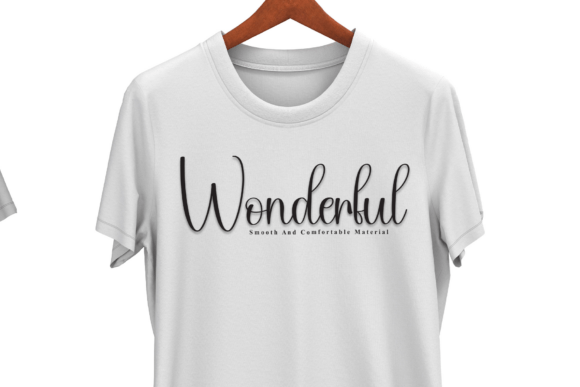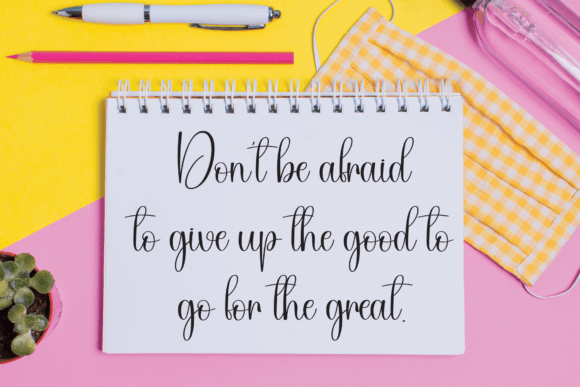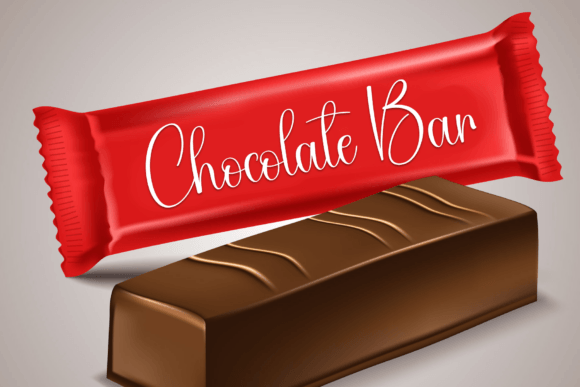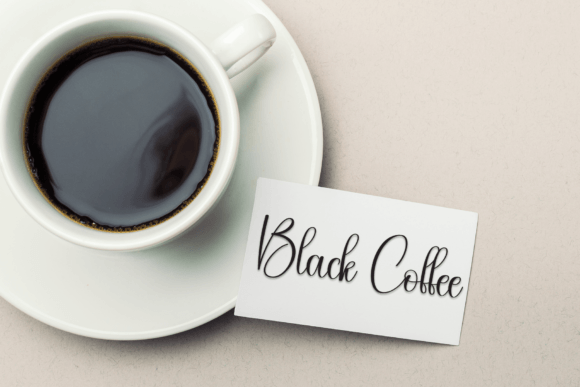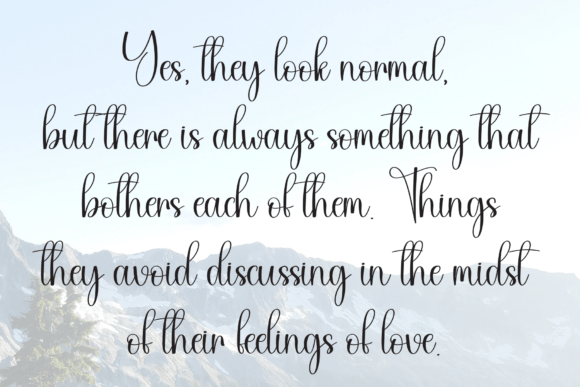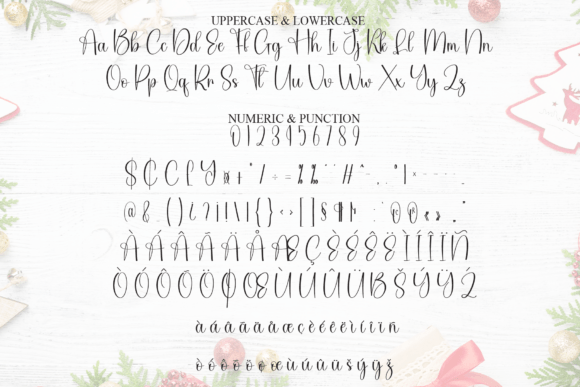
A Timeless Christmas Touch: Elevate Your Holiday Designs with Calligraph Christmas Font
As you sit down to create this year’s Christmas cards and gift tags, the pressure to make them special can be overwhelming. But what if you could infuse your holiday projects with a touch of timeless elegance? The answer lies in the beautiful Calligraph Christmas Font, a script font that embodies the classic charm of calligraphy.
This stunning font is perfect for adding a sophisticated touch to your seasonal creations. With its smooth, flowing curves and traditional calligraphy style, it pairs beautifully with winter-themed elements, bringing warmth and joy to your designs. Whether you’re a professional designer or a crafty enthusiast, the Calligraph Christmas Font is a valuable asset that will elevate your holiday projects to new heights.
Calligraph Christmas Font Key Features
- Unique Calligraphy Style: This font features elegant, cursive script with a touch of Christmas magic, perfect for holiday-themed designs.
- Font Size: 300 glyphs, including uppercase and lowercase letters, numbers, and punctuation marks.
- Customization Options: Includes OpenType features for advanced typography and layout control.
Review of “Calligraph Christmas Font”
Overall, I’m quite impressed with the “Calligraph Christmas Font”. The ✨ elegant, cursive script ✨ style is perfect for adding a touch of sophistication to any holiday design project. The font is highly customizable, allowing users to adjust the size, color, and spacing to suit their needs.
Here are some specific things that work well:
- ✨ Beautiful, intricate details ✨
- ✨ Wide range of customization options ✨
- ✨ Suitable for both digital and print designs ✨
- ⚠️ Limited character set, which may not be suitable for longer text passages ⚠️
- ⚠️ Some characters may not display correctly in certain fonts or font sizes ⚠️
Despite these limitations, I’m overall very pleased with the “Calligraph Christmas Font”. It’s a great choice for anyone looking to add a touch of elegance to their holiday designs. Just be sure to test it thoroughly and use it in conjunction with other fonts to avoid any display issues.
To get the most out of the Calligraph Christmas Font, try the following:
- Use it for titles and headings to add a touch of elegance.
- Combine it with other fonts for a unique and festive look.
The Calligraph Christmas Font is perfect for:
- Christmas card designs.
- Holiday invitations.
- Seasonal social media graphics.
- Christmas party decorations. Alternatives to Calligraph Christmas Font for Designers
- Combine the font with a beautiful image or a simple background to create a striking contrast.
- Use a font size between 24-48 points to ensure readability.
- Pick a muted color scheme with gold or silver accents to complement the font’s elegance.
- Add a simple illustration or a minimalist design element to create visual interest.
- Combine the font with a decorative border or a simple shape to create a frame.
Project 1: Calligraph Christmas Card
Create a unique and personalized Christmas card using Calligraph Christmas Font. The font’s elegant and cursive script will add a touch of sophistication to your holiday greetings.
Project 2: Calligraph Christmas Sign
Create a beautiful and festive Christmas sign using Calligraph Christmas Font. The font’s classic and elegant design will add a touch of warmth and coziness to your home decor.